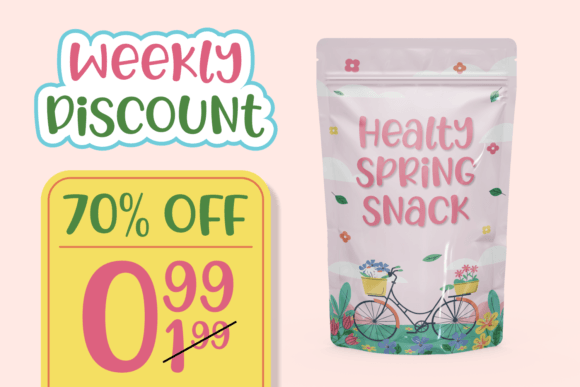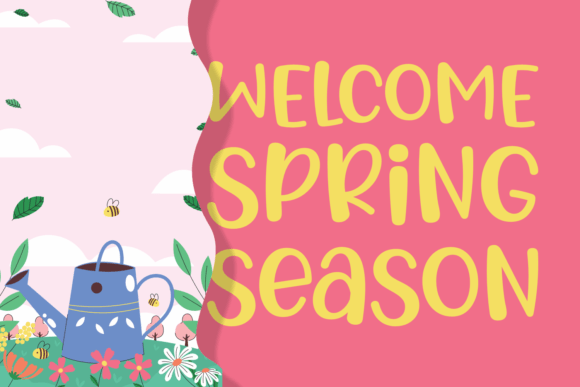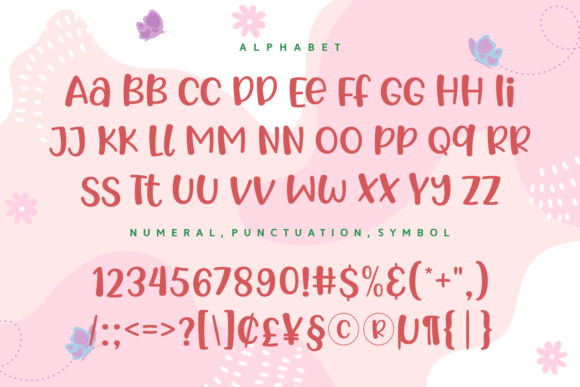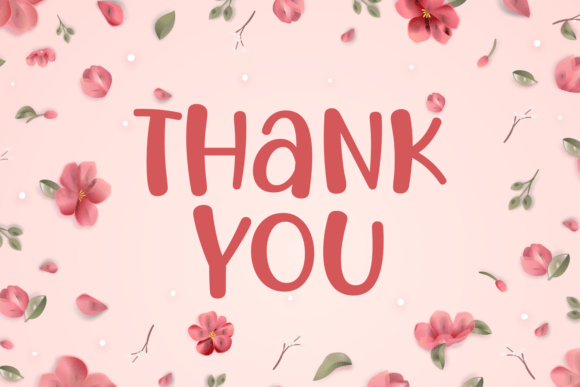
The Joy of Funny Spring: A Friendly Display Font to Brighten Up Your Designs
An Honest Review of Funny Spring
So, what makes Funny Spring so special? Here are a few things I love about this font:
- ✨ Cute and Friendly Design: Funny Spring has a unique, hand-crafted feel that’s perfect for making a bold visual statement.
- ✅ Highly Versatile: This font is suitable for a wide range of applications, including branding, editorial design, packaging, advertising, and digital media.
- 🎉 Attention-Grabbing: The playful and cheerful vibe of Funny Spring makes it perfect for headlines, titles, logos, posters, and signage.
While Funny Spring is an amazing font, it’s not without its quirks. Here are a few things to keep in mind:
- 🤔 Legibility at Small Sizes: As with most display fonts, Funny Spring may not be the best choice for body text or small font sizes.
- ⚠️ Limited Glyphs: While Funny Spring has a range of glyphs and stylistic alternates, it may not have every character or symbol you need.
The Backstory of Funny Spring
Funny Spring was designed by a talented type designer who wanted to create a font that would bring a smile to people’s faces. Inspired by the playful and carefree spirit of spring, Funny Spring was born. With its unique blend of friendliness and whimsy, this font is sure to brighten up any design.
| Font Name | Funny Spring Font |
| What is Funny Spring font best used for? | Funny Spring is perfect for headlines, titles, logos, posters, and signage, as well as branding, editorial design, packaging, advertising, and digital media. |
| Does Funny Spring have OpenType features? | Yes, Funny Spring has a range of OpenType features, glyphs, and stylistic alternates that can be accessed using compatible design software. |